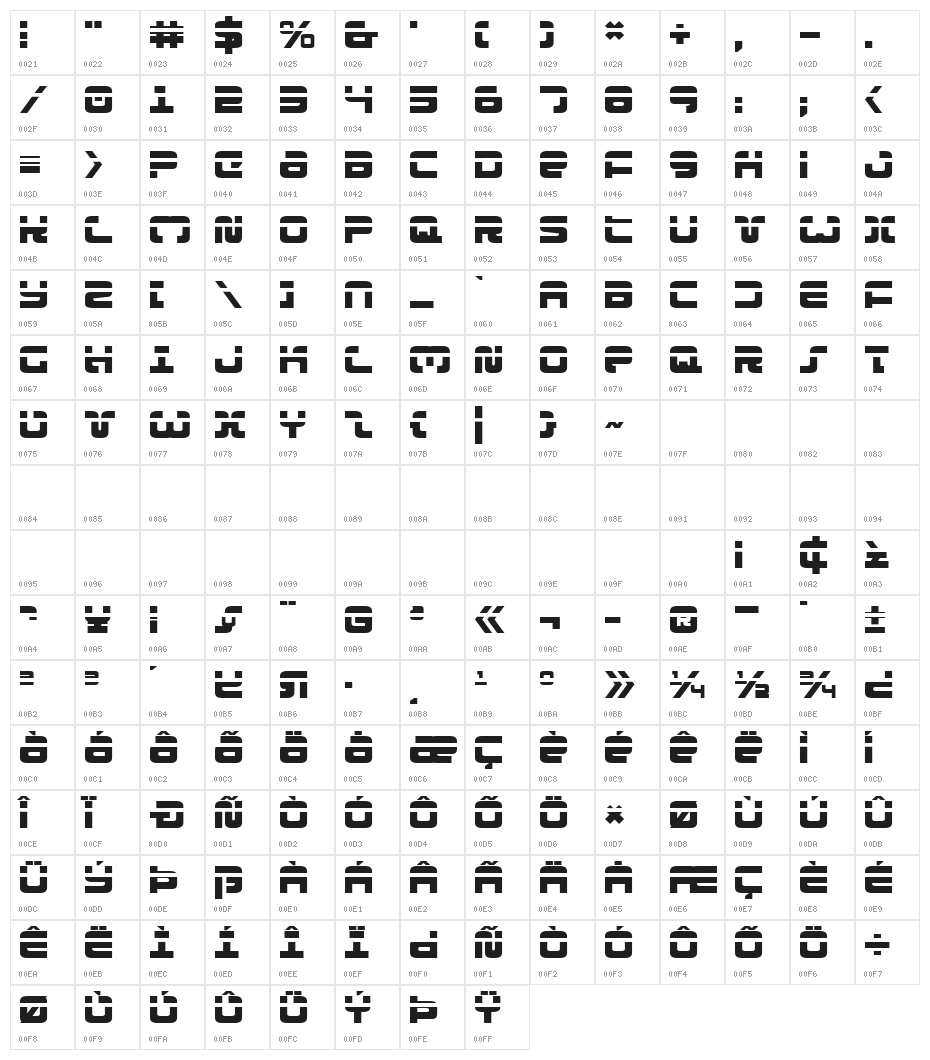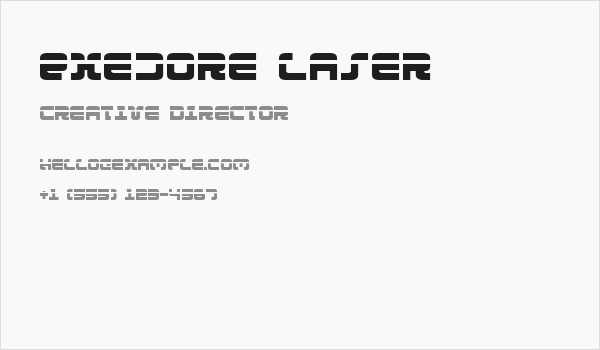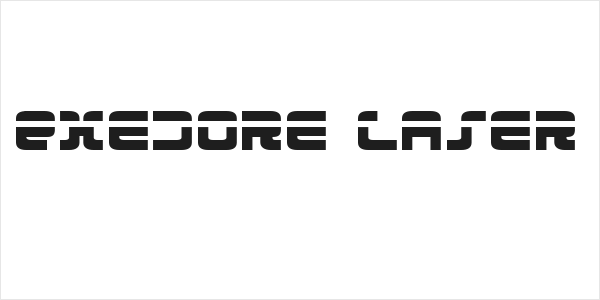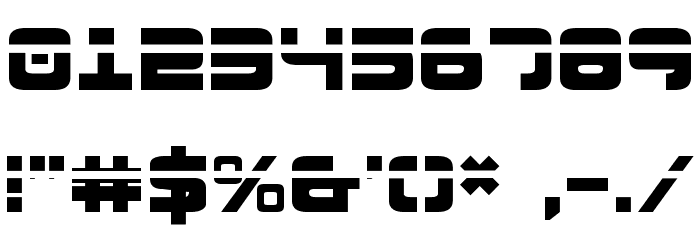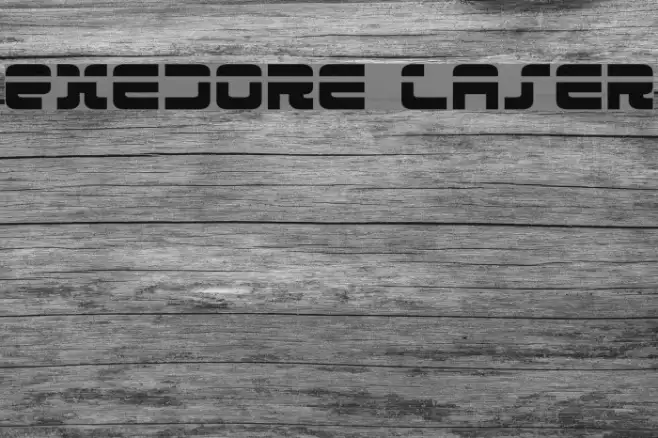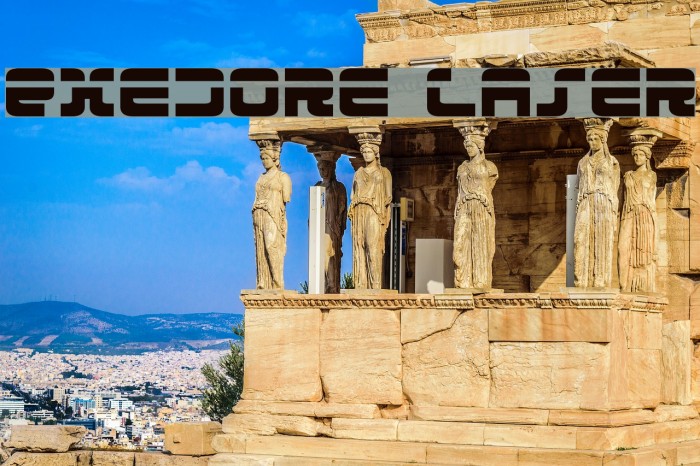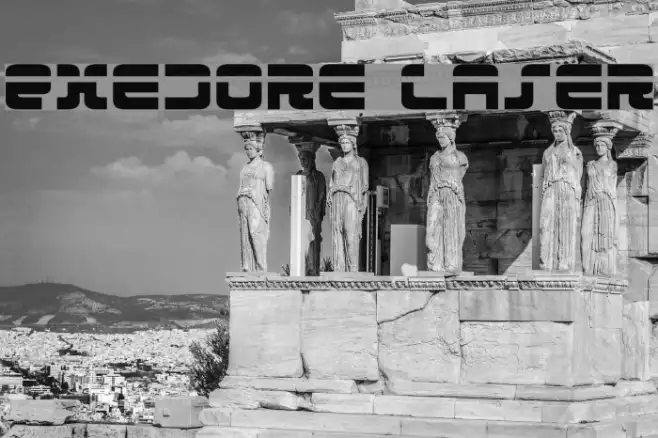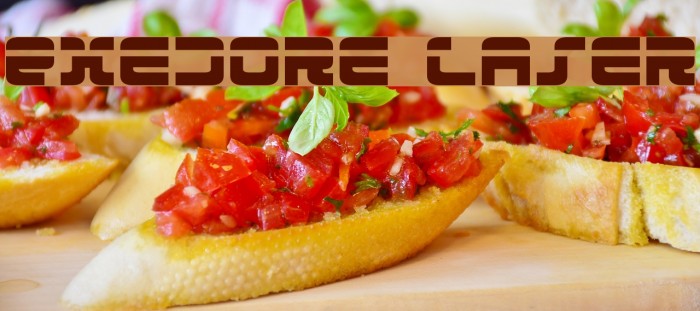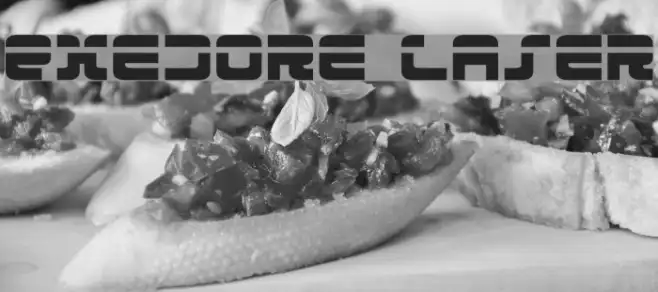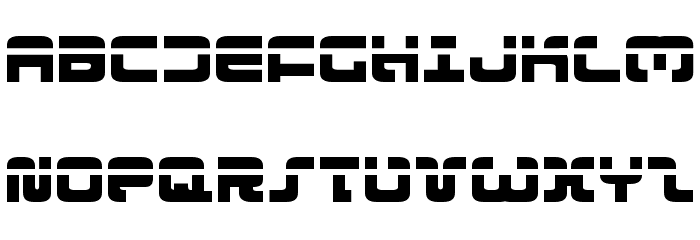
Exedore Laser Font
Exedore Laser Description
This font features a futuristic and geometric design, characterized by bold, block-like letterforms with rounded edges and cut-out sections. The uppercase and lowercase letters maintain a consistent style, creating a cohesive visual identity. The numerals and special characters follow the same aesthetic, ensuring uniformity across all glyphs. The font's unique style makes it stand out, with a strong emphasis on modernity and innovation. Its bold appearance is ideal for projects that require a striking and memorable visual impact.
| Proposed Projects | Ideal for sci-fi themed projects, technology branding, video game titles, and futuristic posters. |